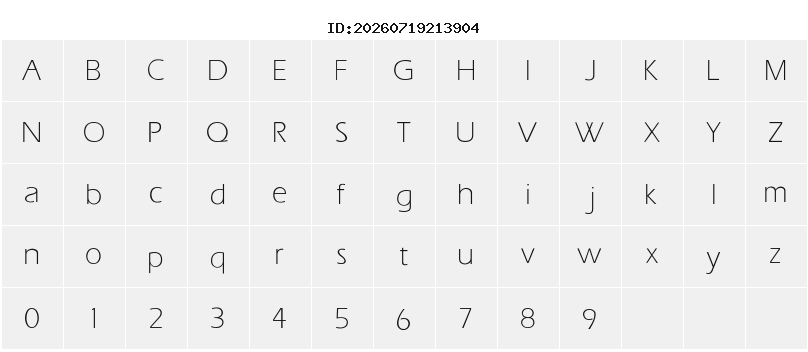
Eric Light Preview
• Font Name: Eric Light
• Full Font Name: Eric Light
About Eric Light.ttf
Eric Light.ttf is a modern, elegant sans-serif font designed for ultimate readability and visual harmony. Perfect for branding, headlines, web design, and print materials.